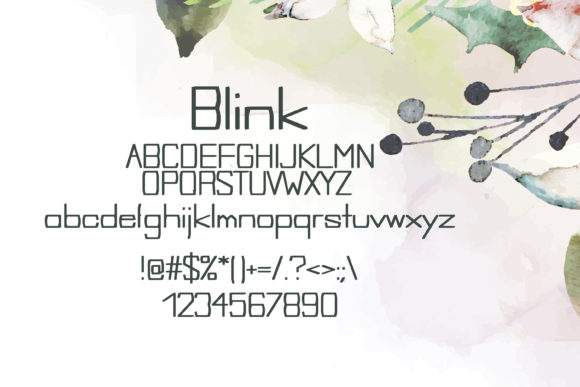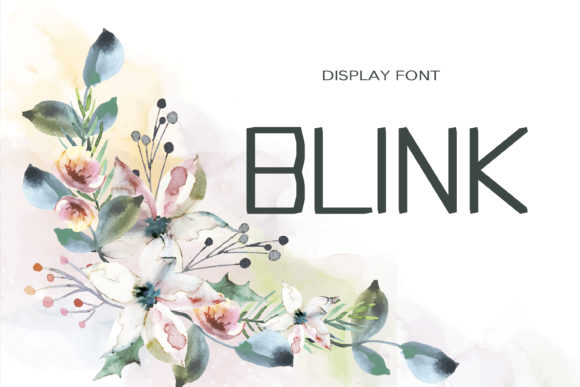
Introducing Blink Font: The Simple and Natural Display Font for Your Design Needs
Are you a designer or crafter looking for a font that can elevate your design projects? Look no further than Blink Font! Blink is a simple and natural display font that can add a touch of elegance and sophistication to any design. Its clean and neat style makes it a versatile font that can be used in a wide range of design projects, from branding and advertising to packaging and digital media.
What Makes Blink Font Stand Out?
Blink Font stands out from other fonts due to its unique combination of simplicity and elegance. Its clean lines and neat style make it easy to read and understand, while its natural and organic feel adds a touch of warmth and personality to any design. Whether you’re creating a logo, brochure, or website, Blink Font is the perfect choice for designers and crafters who want to create a lasting impression.
Key Features of Blink Font
• Simple and Natural Style: Blink Font has a simple and natural style that makes it easy to read and understand.
• Clean and Neat Lines: The font features clean and neat lines that add a touch of elegance and sophistication to any design.
• Versatile: Blink Font can be used in a wide range of design projects, from branding and advertising to packaging and digital media.
• Elegant and Sophisticated: The font’s elegant and sophisticated style makes it perfect for designers and crafters who want to create a lasting impression.
How to Use Blink Font in Your Design Projects
Blink Font can be used in a variety of design projects, including:
• Branding and Advertising: Use Blink Font to create a logo or tagline that will make your brand stand out.
• Packaging Design: Add a touch of elegance and sophistication to your packaging design with Blink Font.
• Digital Media: Use Blink Font to create engaging and informative digital content, such as blog posts, social media graphics, and email newsletters.
• Print Design: Use Blink Font to create stunning print designs, such as brochures, flyers, and posters.
Why Designers and Crafters Love Blink Font
Designers and crafters love Blink Font for its versatility, elegance, and simplicity. The font is easy to use and can be paired with a variety of other fonts to create a unique and cohesive design. Additionally, Blink Font is highly legible, making it perfect for designs that require a clear and concise message.
Tips for Getting the Most Out of Blink Font
• Pair with Other Fonts: Pair Blink Font with other fonts to create a unique and cohesive design.
• Experiment with Colors: Experiment with different colors to find the perfect combination that complements your design.
• Use in Combination with Images: Use Blink Font in combination with images to create a visually appealing design.
Font Name Blink Font
Author DmDesignsStoreArt
In conclusion, Blink Font is a simple and natural display font that can add a touch of elegance and sophistication to any design project. Its clean and neat style makes it a versatile font that can be used in a wide range of design projects. Whether you’re a designer or crafter, Blink Font is the perfect choice for creating stunning designs that will leave a lasting impression.